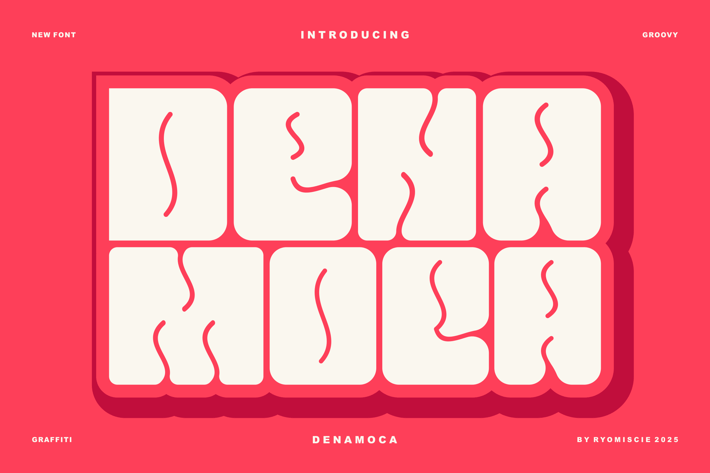
Denamoca - Groovy & Graffiti Font
Introducing our new product Denamoca Font - Groovy & Graffiti Font
Denamoca Font - Modern Font is a bold and authentic display font. The font is suitable for any branding project like logo,
t-shirt printing, esport, and many more. outstanding in a wide range of contexts.